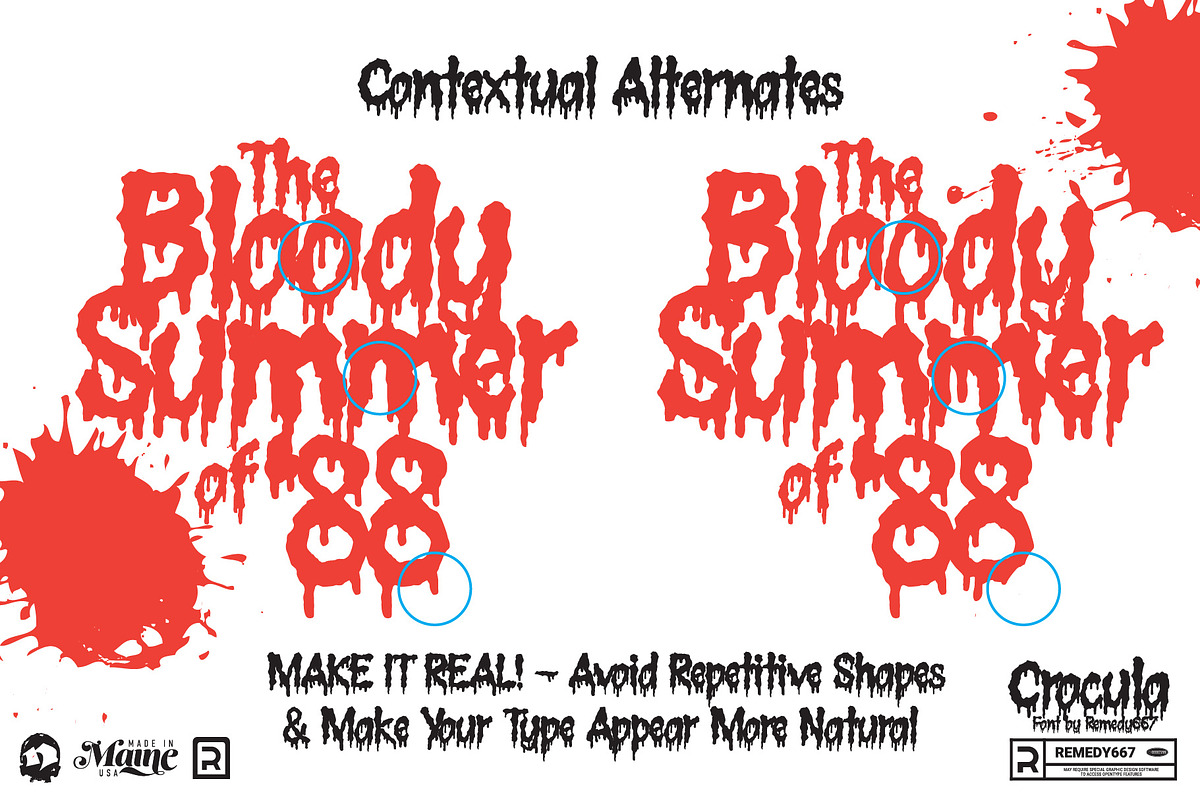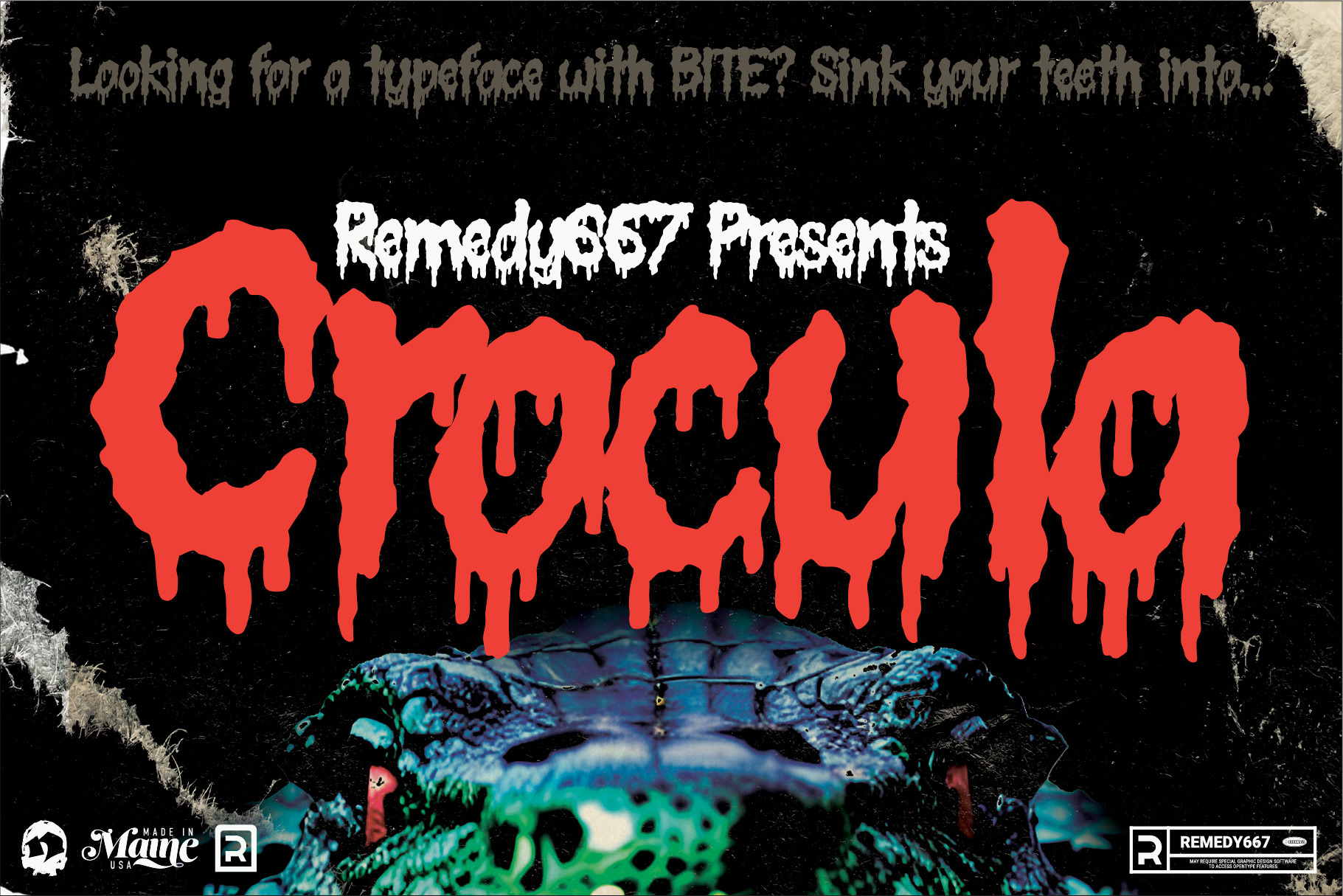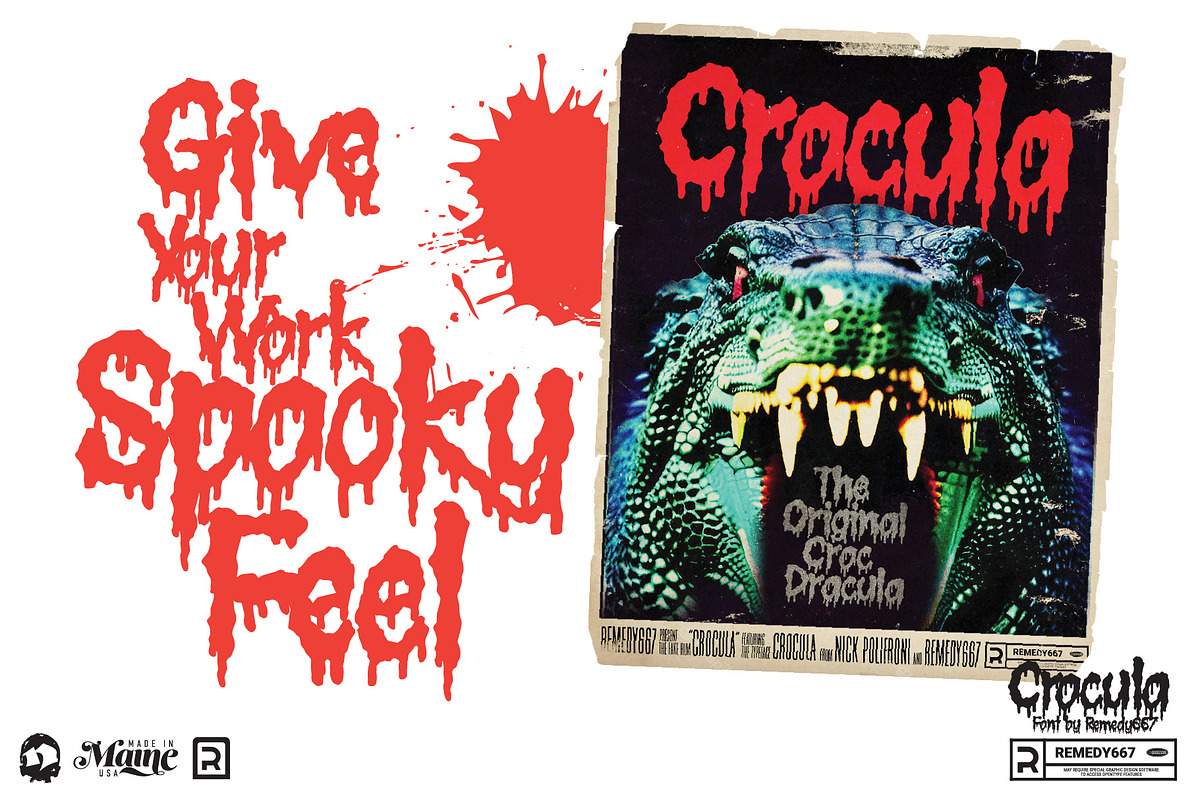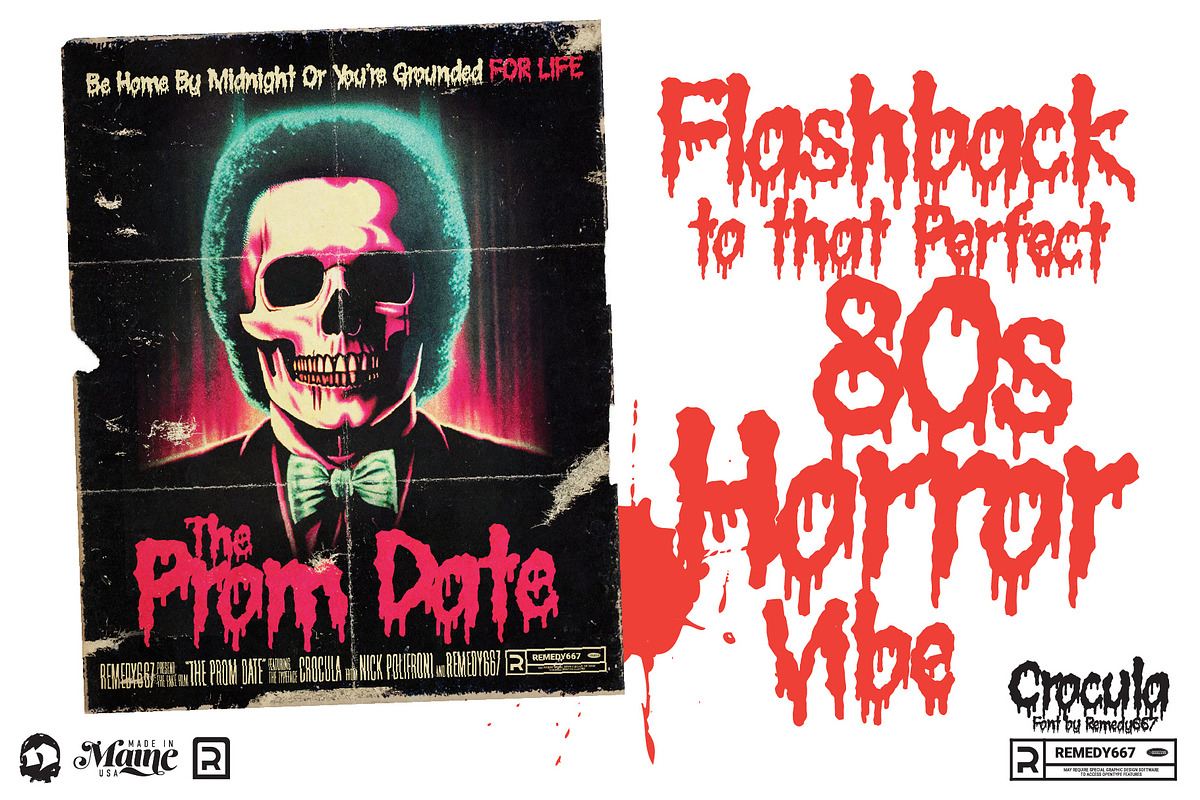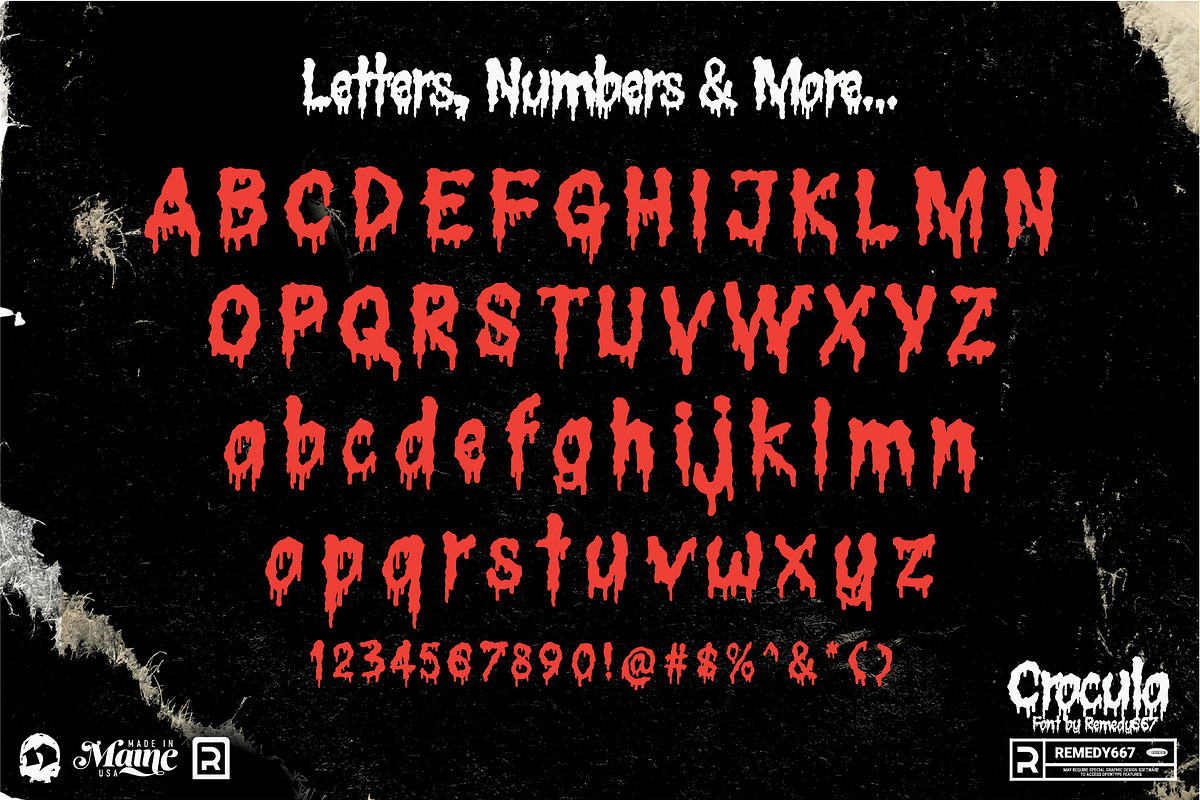
Crocula - Dripping Horror Font
Step into a world of terror with Crocula, the ultimate choice for horror enthusiasts and creators alike. Inspired by classic horror films, this font brings a spine-chilling touch to any project. Create a truly unique and terrifying look with contextual alternates. Give each letter and number more natural variety, adding an extra layer of fright to your designs.
Whether you’re working on a spooky poster, bone-chilling website, or a petrifying headline, Crocula can bring your vision to life. Give your audience goosebumps and leave an unforgettable impression with Crocula!
- Doubles Elimination for letters and numbers allows you to create natural looking text with ease.
- Jagged edges and dripping forms add a touch of dread to any design.
- Perfect for logos, posters, titles or other artwork that needs something special to stand out.